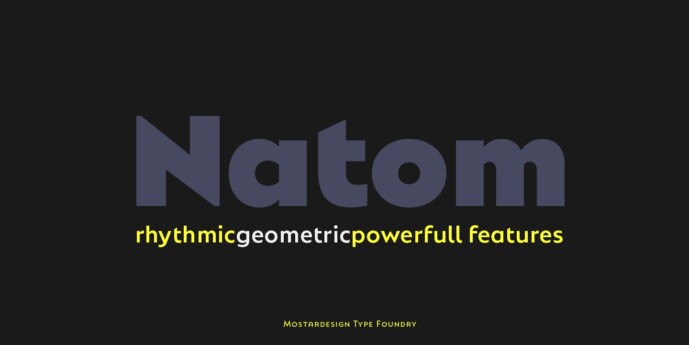
Natom Pro Font Family
Designer: Olivier Gourvat
Natom Pro Font Family
Natom Pro is a modern and geometric font family adapted to the professional requirements of graphic designers, web designers and mobile application developers. Comprised of 19 styles including 8 styles designed especially for the design of headlines, Natom Pro is a very versatile family of fonts that can be used in many projects such as editorial design, branding or corporate identity creation, design of posters or logos, the creation of websites or the development of mobile applications.
This font, with a resolutely contemporary aspect, also hides a unique typographic design since it has 2 distinct styles (Title and Roman) which have 2 different typographic rhythms in order to graphically differentiate the appearance of titles, subtitles and long paragraphs. With this design of rhythmically differentiated glyphs according to the styles, the headlines have a very graphic aspect while the long texts have a more classic aspect in order to keep optimal readability in all scenarios.